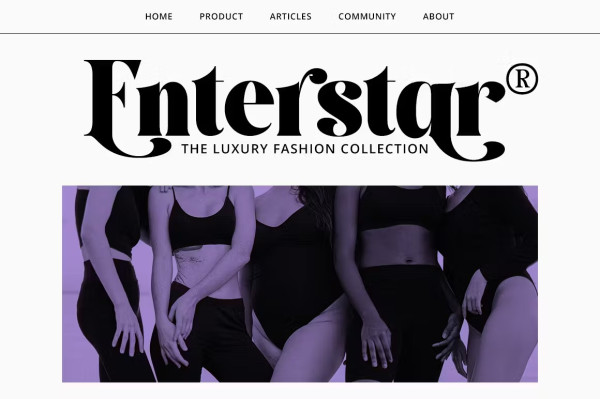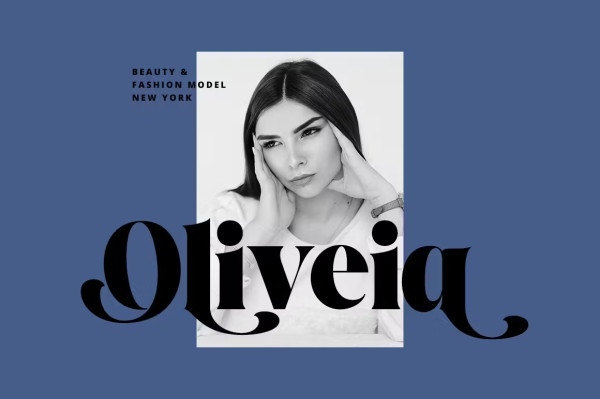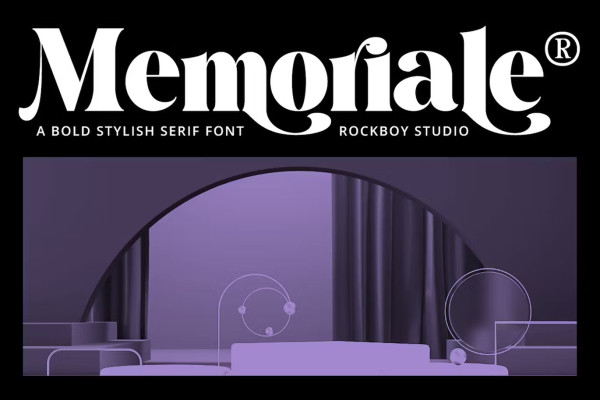
Memoriale Font
Memoriale Font is an elegant and distinct serif font. Suitable for a wide variety of designs thanks to its clean and simple style, this font has the potential to become your favorite typeface, whatever the occasion!